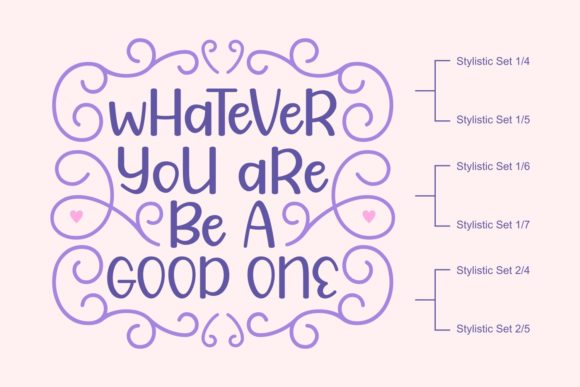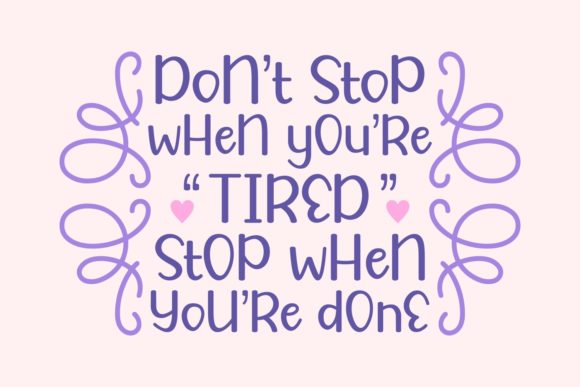
Sherlyna Font
About Sherlyna Font
Sherlyna is a fun, jolly and quirky handwritten font. It can be used for a variety of casual and friendly creations. Add it confidently and you will fall in love with the outcome.